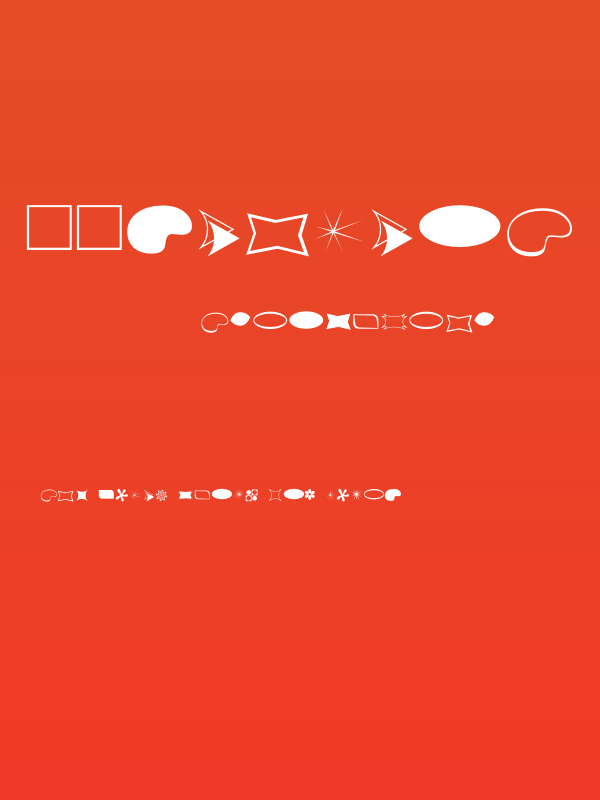
60sChicOT Font
60sChicOT Description
A playful dingbat font featuring a variety of bold, retro-inspired geometric shapes, starbursts, flowers, cocktail glasses, and abstract forms reminiscent of 1960s design motifs. The glyphs are highly decorative, with both filled and outlined styles, and evoke a sense of mid-century modern flair.
| Overall Style | Decorative, Retro, Playful |
| Use Case | Decorative elements, Borders, Themed graphics |
| Proposed Projects | Party invitations, event posters, retro branding, decorative borders, scrapbooking, themed social media graphics. |